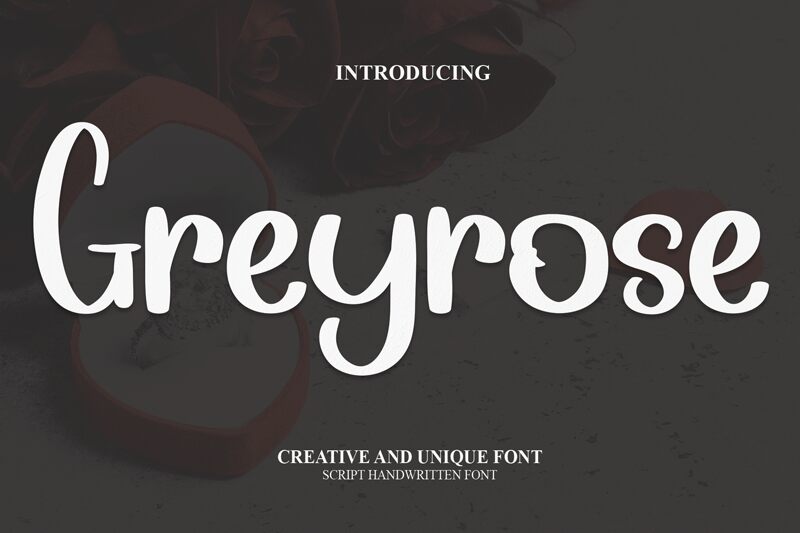
Greyrose
Greyrose, a captivating handwritten font designed by Belina Studio, adds a touch of elegance and sophistication to your projects. This versatile typeface is perfect for wedding invitations, branding materials, luxury packaging, and more. With its graceful curves and delicate strokes, Greyrose evokes a sense of timeless beauty and refined aesthetics. Whether you're designing a romantic logo or creating stunning social media graphics, this font is sure to make a lasting impression. Embrace the allure of Greyrose and elevate your designs to new heights of creativity.
The latest style letters are perfect for wall displays, wedding invitations, social media post logos, advertisements, product packaging, product designs, labels, photography, watermarks, invitations, stationery, and any project that requires taste handwriting.